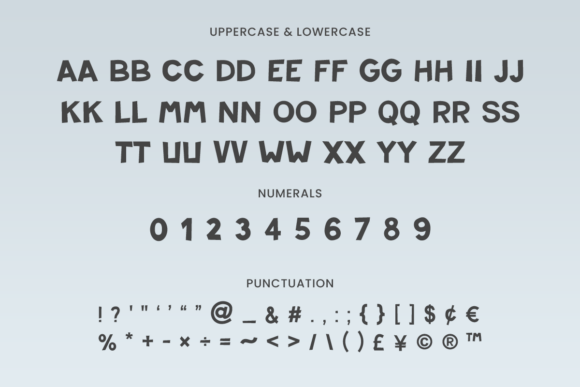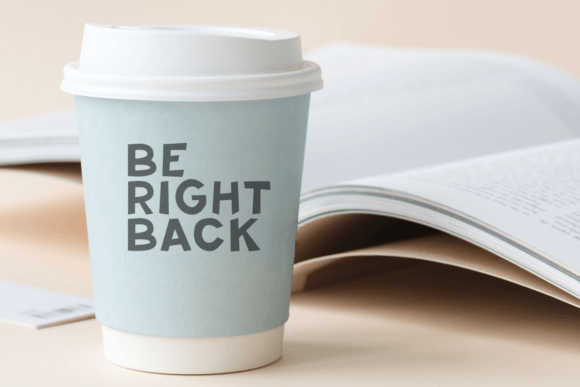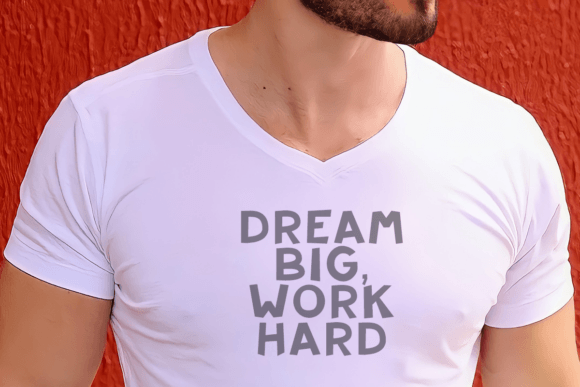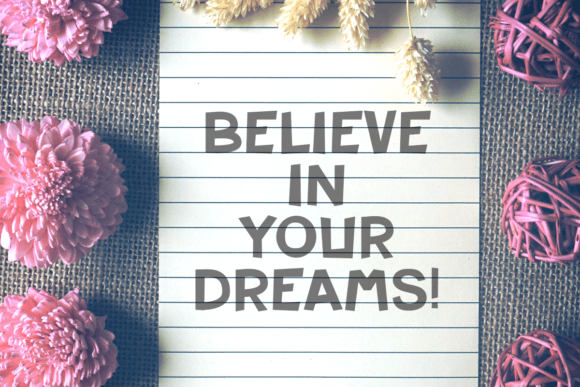
Unleashing the Power of Casual Bold Font: Elevate Your Designs with Confidence
In the realm of typography, a font can make or break the visual appeal of a design. For designers and crafters seeking to create a lasting impression, the Casual Bold font is an exceptional choice. Presenting Casual Bold – designed to steal the spotlight with its audacious display and bold appeal. Meticulously crafted with robust lines and dynamic contours, this font breathes life into modern aesthetics.
The Making of a Statement Font
Casual Bold is more than just a font; it’s a statement piece. Its bold and daring design ensures that your message doesn’t just get read, but also remembered. The font’s robust lines and dynamic contours give it a unique edge, making it perfect for headlines, posters, and logos that require an impactful footprint. Whether you’re working on a branding project, an advertising campaign, or a creative endeavor, Casual Bold is the perfect companion to help you make a statement.
Key Features of Casual Bold Font
- Audacious Display: Casual Bold’s bold appeal is designed to grab attention and hold it. Its confident display makes it perfect for headlines, titles, and other prominent design elements.
- Robust Lines: The font’s robust lines give it a sturdy feel, making it suitable for a wide range of design applications, from posters to logos.
- Dynamic Contours: The dynamic contours of Casual Bold add a touch of modernity to its design, making it perfect for projects that require a fresh and contemporary look.
- Impactful Footprint: Casual Bold’s bold design ensures that your message leaves a lasting impression on your audience.
Casual Bold is a versatile font that can be used in a variety of design applications. Designers and crafters can use it to:
- Create eye-catching headlines and titles for articles, blog posts, and social media updates.
- Design striking posters, flyers, and brochures that grab attention.
- Develop memorable logos and branding elements that make a lasting impression.
- Enhance the visual appeal of packaging designs, product labels, and business cards.
Why Choose Casual Bold?
Casual Bold does more than merely spell words; it communicates resonance. With this font, you can amplify your designs and let your message resonate powerfully with your audience. Here are some compelling reasons to choose Casual Bold:
- Unique Design: Casual Bold’s bold and daring design sets it apart from other fonts, ensuring that your designs stand out from the crowd.
- Versatility: The font’s versatility makes it suitable for a wide range of design applications, from digital projects to print materials.
- Easy to Read: Despite its bold design, Casual Bold remains easy to read, making it perfect for body text and other smaller design elements.
- High-Quality: Casual Bold is a high-quality font that is designed to deliver exceptional results in any design project.
In conclusion, Casual Bold is an exceptional font that can elevate your designs with confidence. Its bold and daring design, robust lines, and dynamic contours make it perfect for headlines, posters, and logos that require an impactful footprint. With Casual Bold, you can amplify your designs and let your message resonate powerfully with your audience. So why wait? Try Casual Bold today and experience the power of bold typography in your designs.